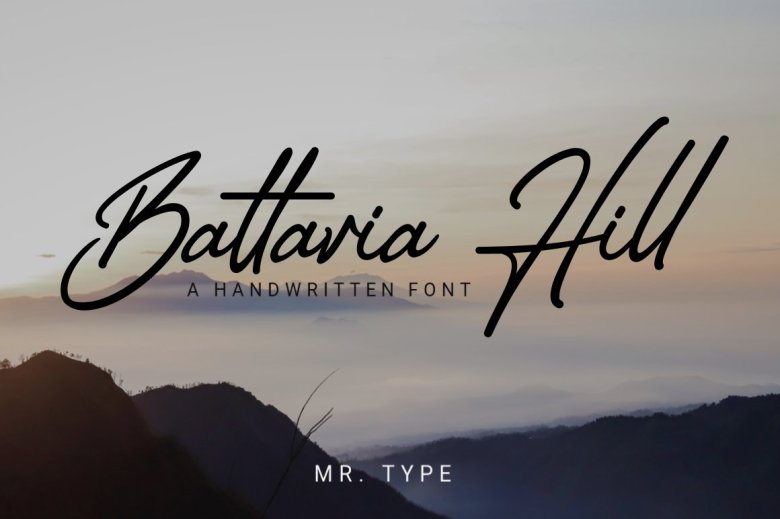
Battavia Hill Font
Battavia Hill is elegant handwritten font. With a classy and natural handwritten style, it makes your project beautiful and professional. Battavia Hill is suitable for many different designs for business card, quotes, social media, signature, wedding invitations, advertisements, product designs, label, photography, watermark and more.
Battavia Hill Handwritten Font